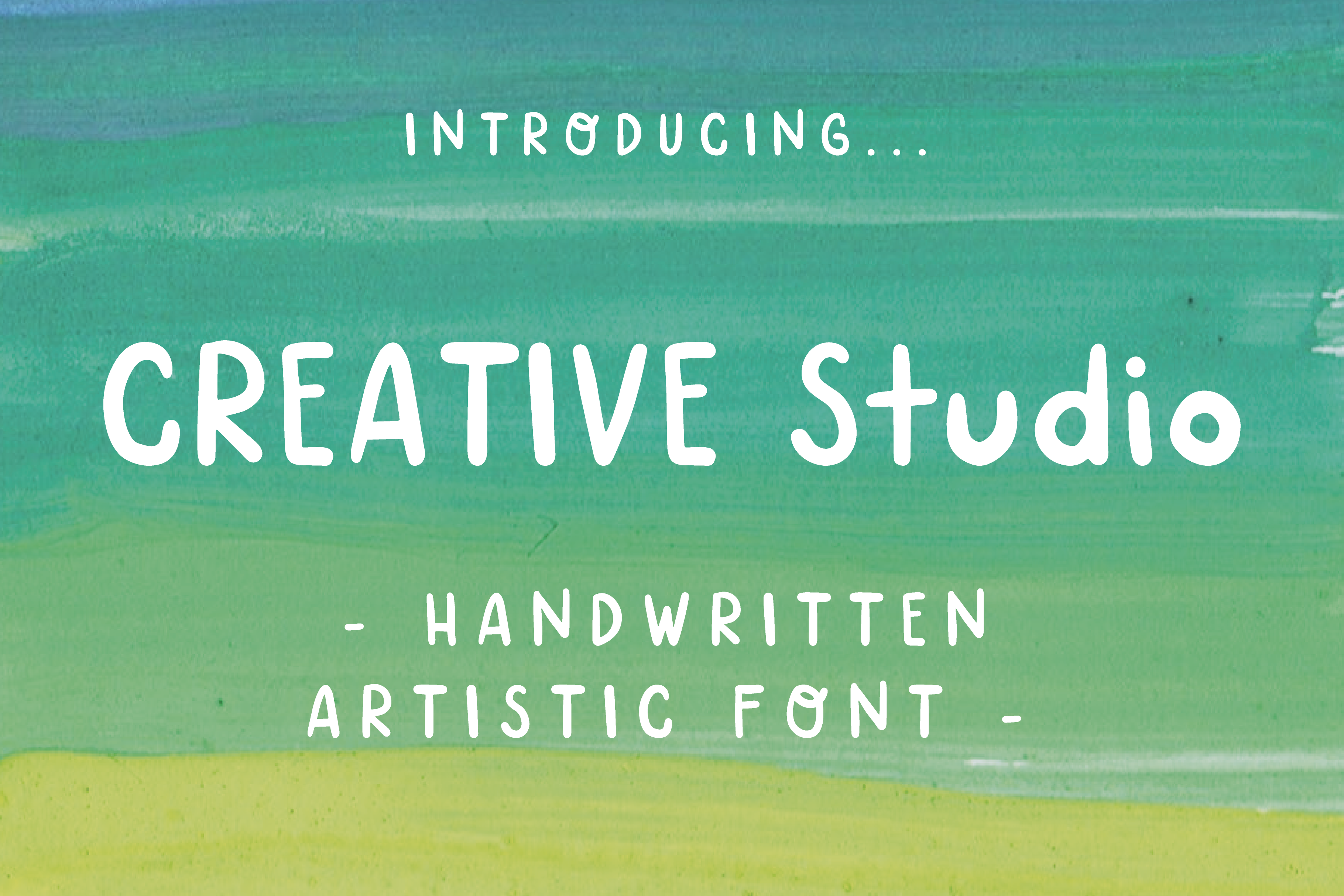
Creative Studio Font - Handwritten
Hello guys, I am glad to present you my handwritten font Creative Studio Font with interesting artistic style. It can be perfect for your vlog, blogs, journals, trips, travel diaries, videos and many other experiences. Lowercase, uppercase letters, numbers and characters are available. This font is perfect for creating logos, headlines, blogs, websites, stationary and other amazing stuff.